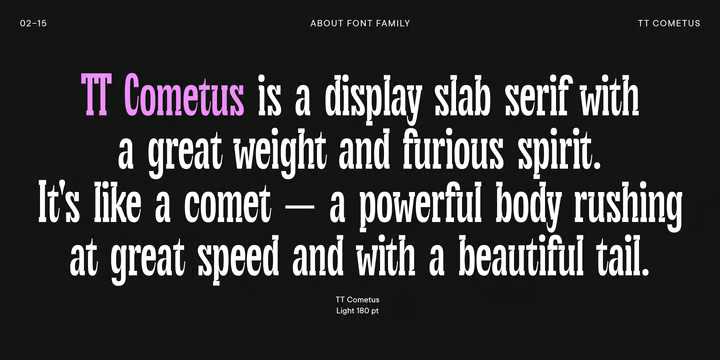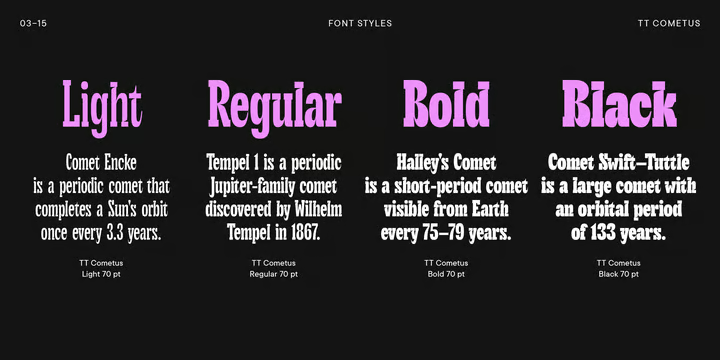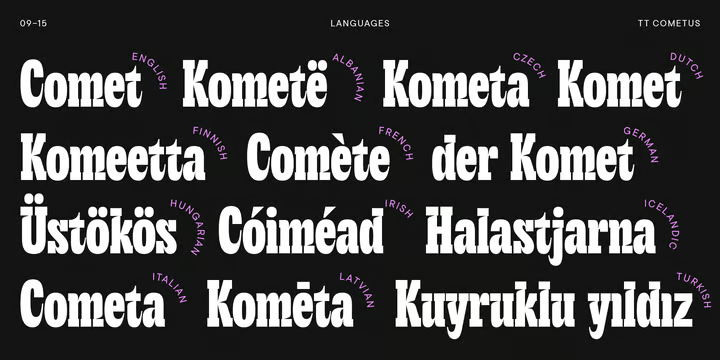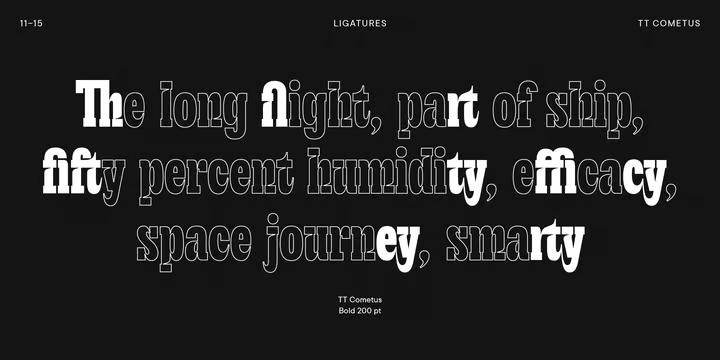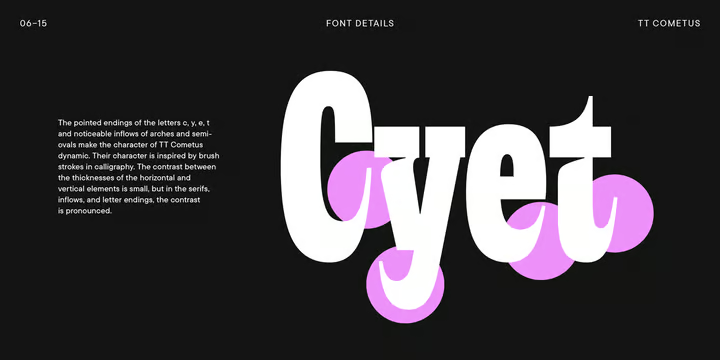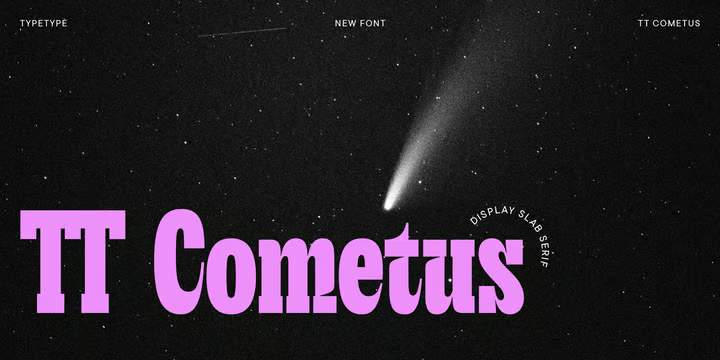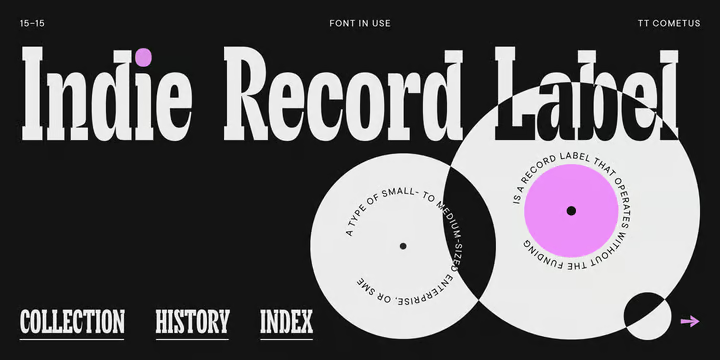
TT Cometus Font
TT Cometus is a captivating typeface that immediately draws you in upon encountering its text. Despite its substantial presence, the font exudes adaptability and dynamism, akin to a comet slicing through space with the sole purpose of seizing the viewer’s attention.
As a slab serif, TT Cometus features robust serifs that elegantly intersect with the vertical strokes, infusing the typeface with a contemporary and dynamic character. This design choice not only evokes calligraphic aesthetics in certain aspects but also maintains stability in display elements through its substantial serifs.
The dynamic nature of TT Cometus is emphasized by pointed endings in letters such as c, y, e, t, along with distinctive arches and semi-ovals. Although the contrast between horizontal and vertical elements is subtle, it becomes pronounced in serifs, inflows, and letter endings. The font achieves a harmonious balance, and its amiability is accentuated by the smoothness of its shapes.
Designed to engage the viewer, TT Cometus seamlessly combines flow with a commanding presence, making it ideal for attention-grabbing projects. This display font truly shines in larger sizes, finding its place in printed materials or web applications. TT Cometus excels in headlines and logos, making it a fitting choice for branding purposes.
Featuring 5 faces, including 4 upright variants and one variable font, TT Cometus boasts a comprehensive set of 568 glyphs in each face. The font encompasses 18 OpenType features, showcasing an abundance of ligatures and alternative characters for the ampersand and the letter g, adding versatility to its usage.